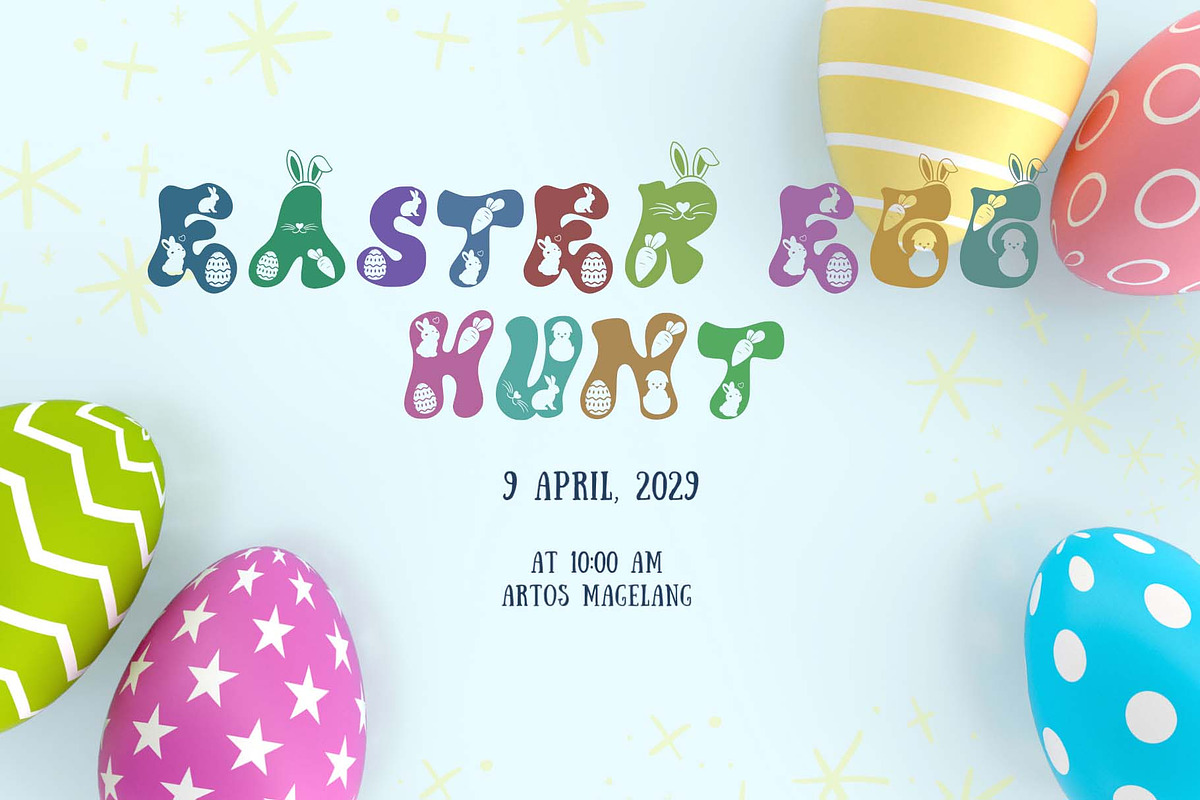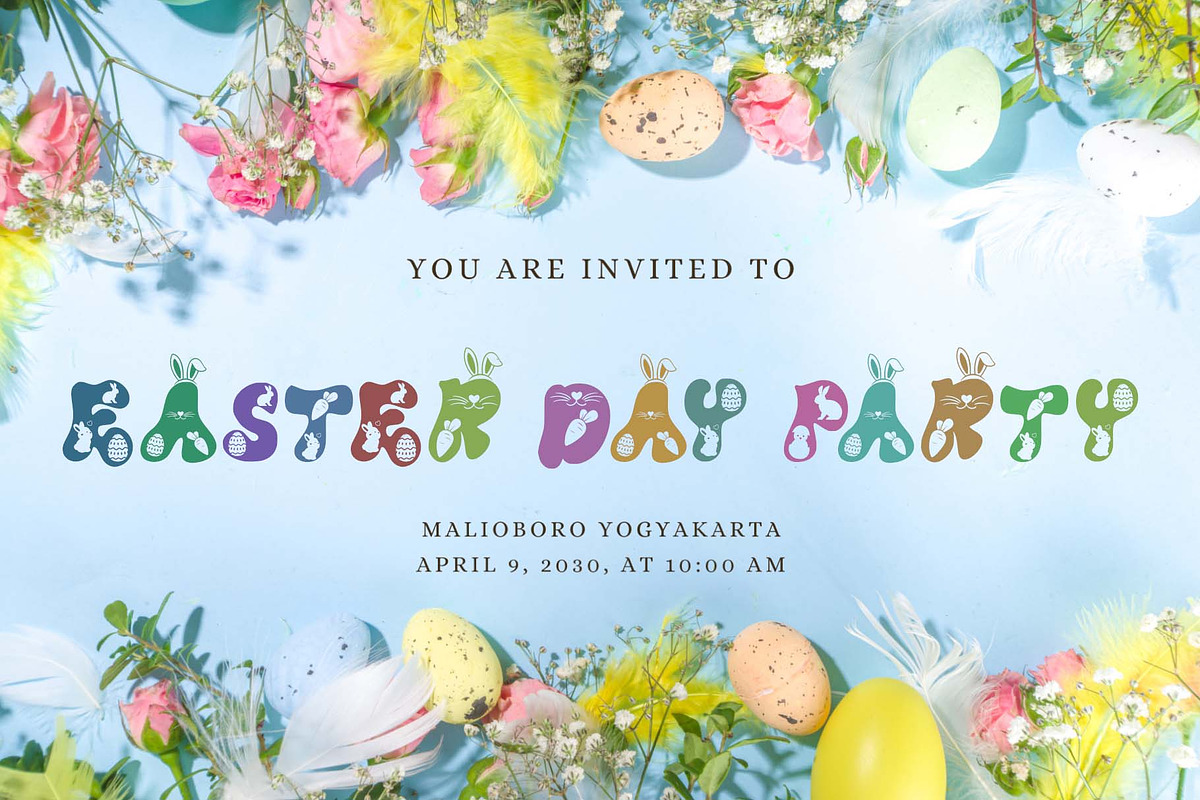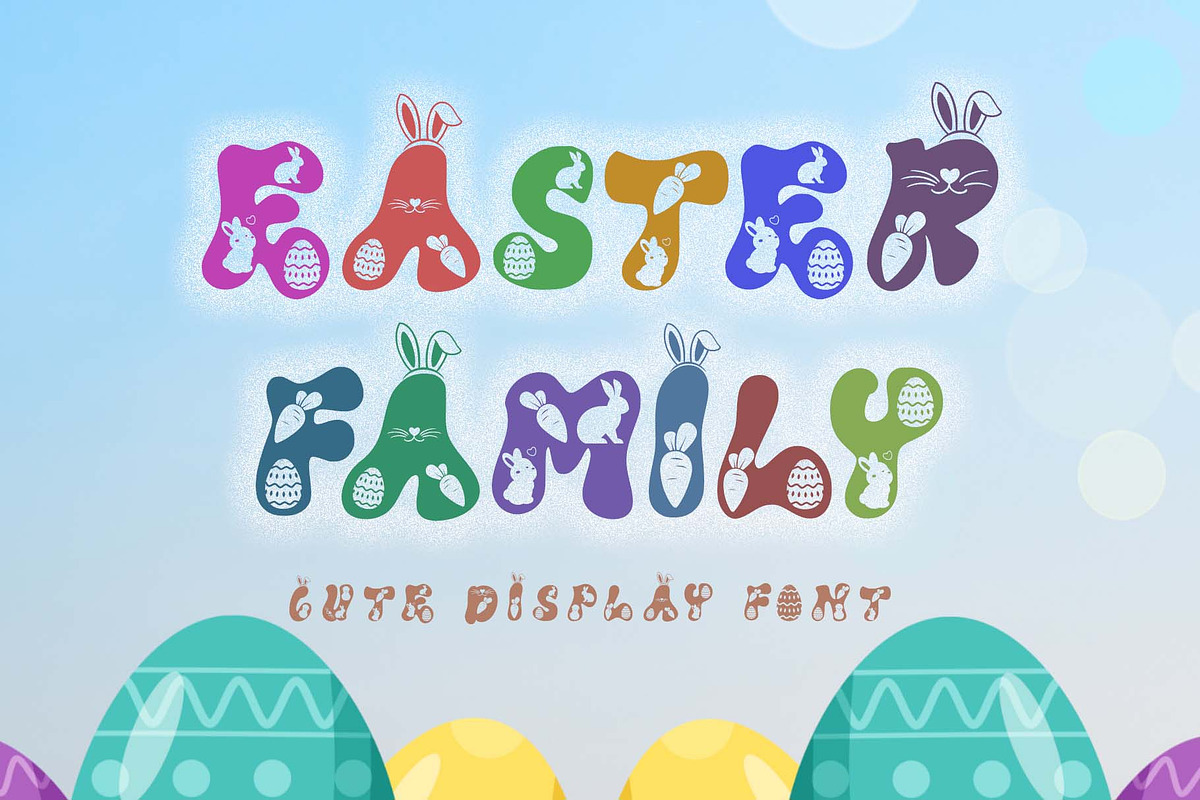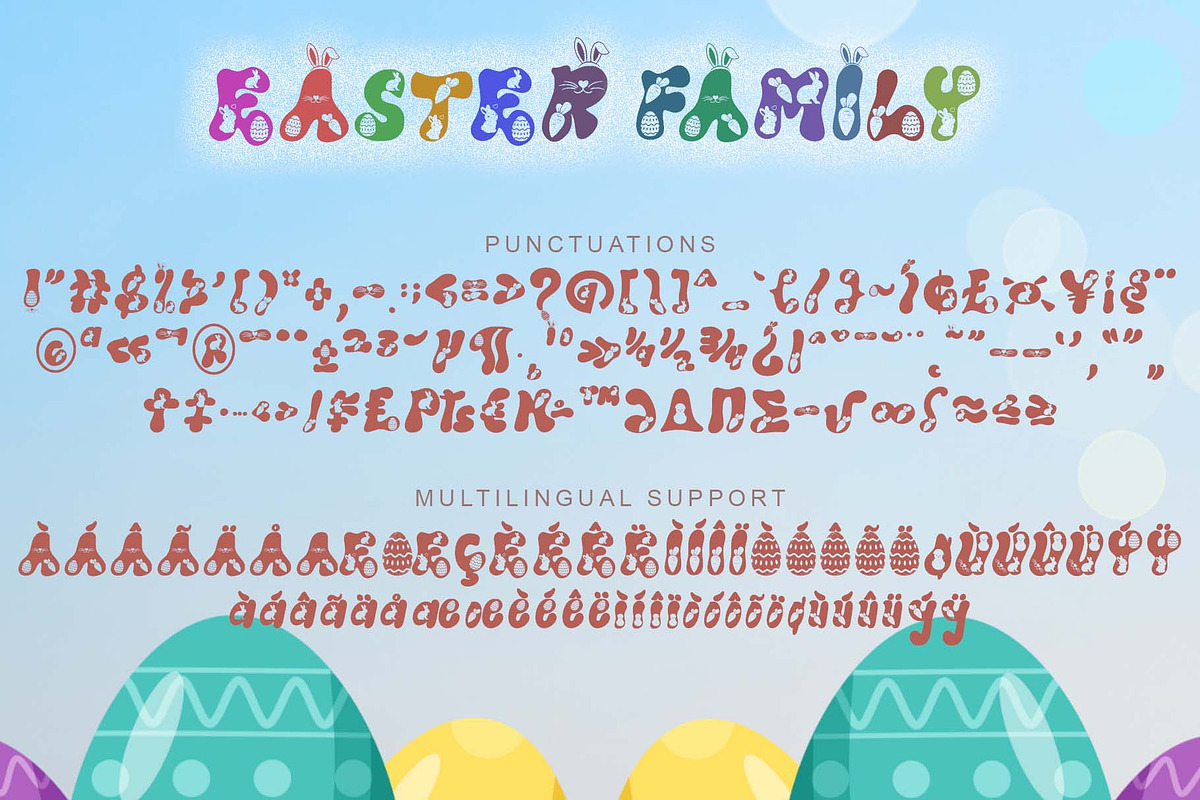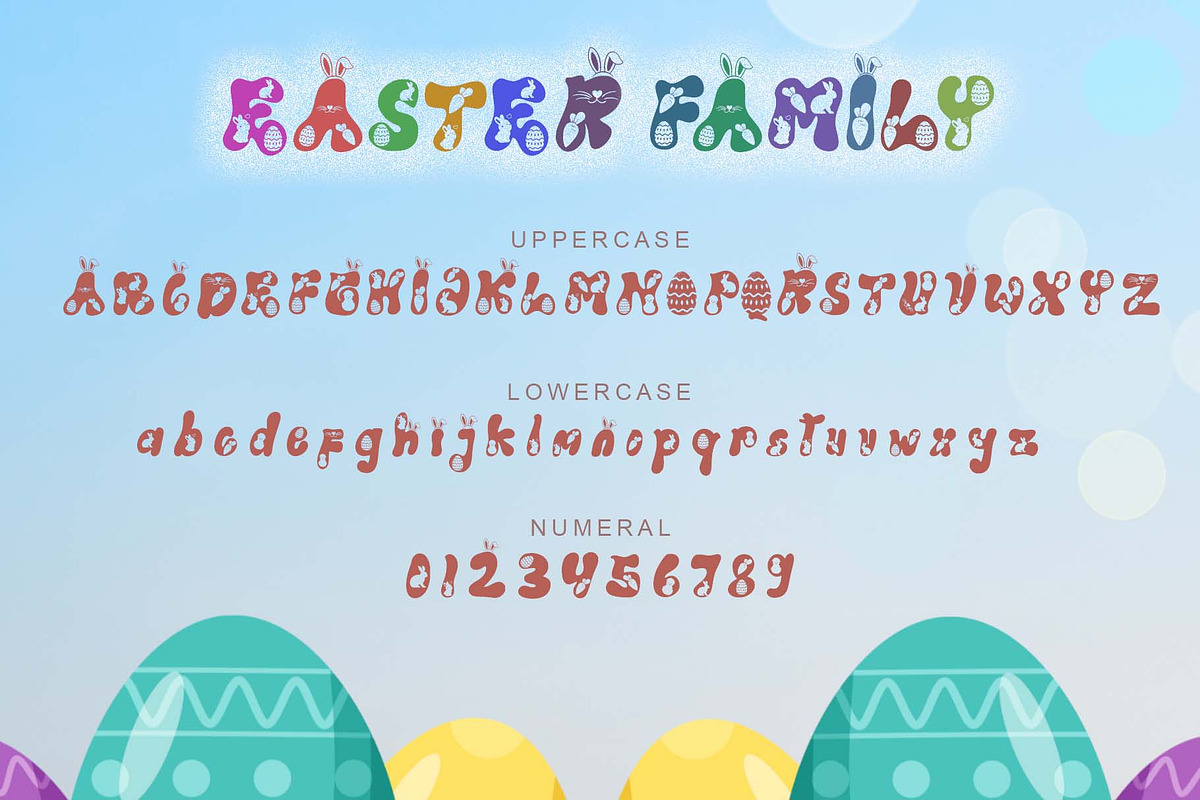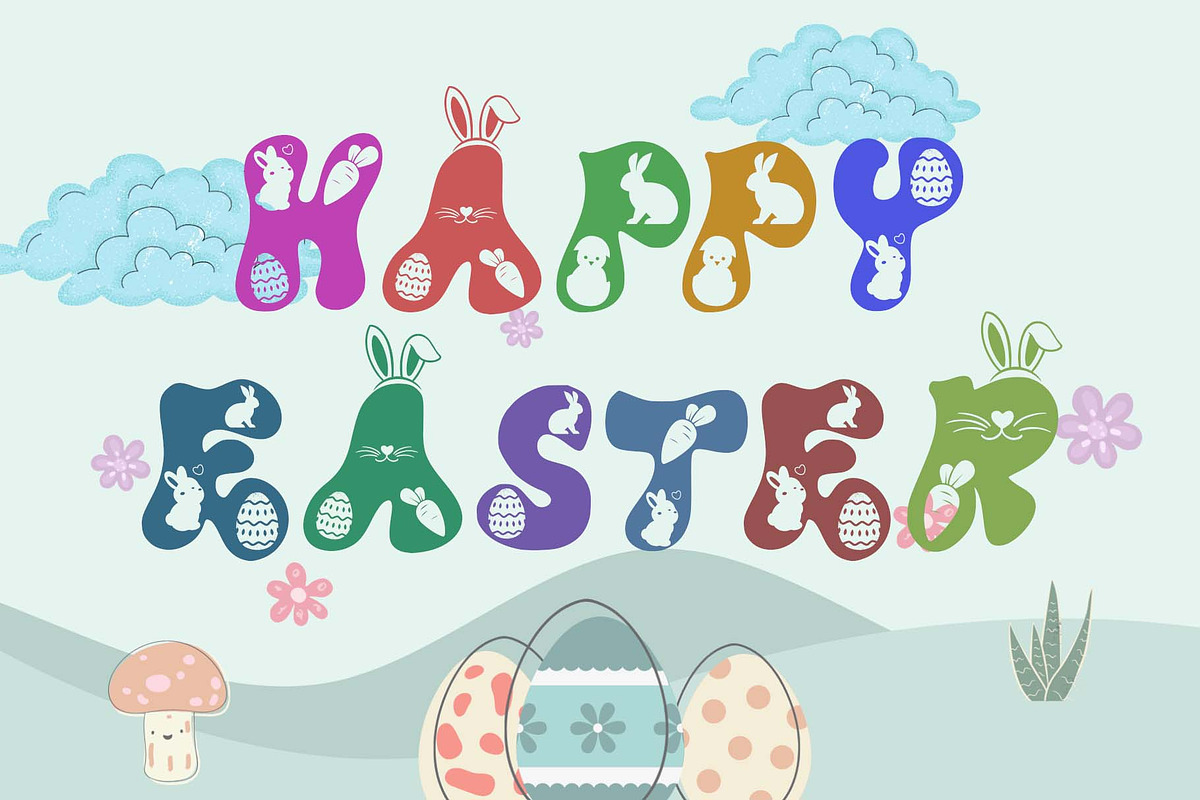
Easter Family
"Easter Family" is a unique and cute display font. This font is equipped with uppercase, lowercase, numeral, punctuations and multilingual support. Very suitable for use for easter, animal, comic, cartoon, funny movie titles, logo, sticker, poster, print, branding and others.